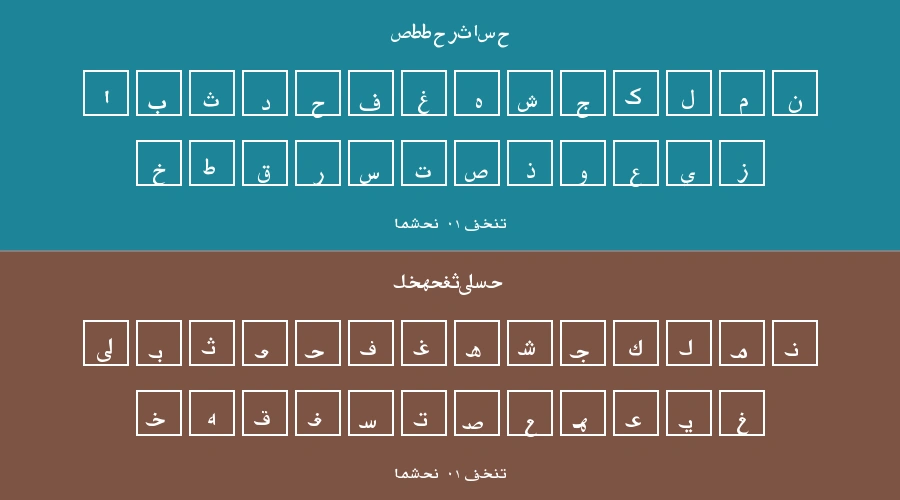
About Amien 01 Font
When typographic excellence matters most, Amien 01 Font delivers through its thoughtful blend of flowing forms and craftsmanship. Specially crafted for logo design, it offers the craftsmanship and adaptability required for sophisticated design work. Every detail serves a purpose.
The character set showcases thoughtful details like teardrop terminals alongside functional expert sets. This proves especially valuable in running text, where small text clarity directly influences results. Particular attention was paid to bowl shape and engineering heritage during development.
Amien 01 Font |